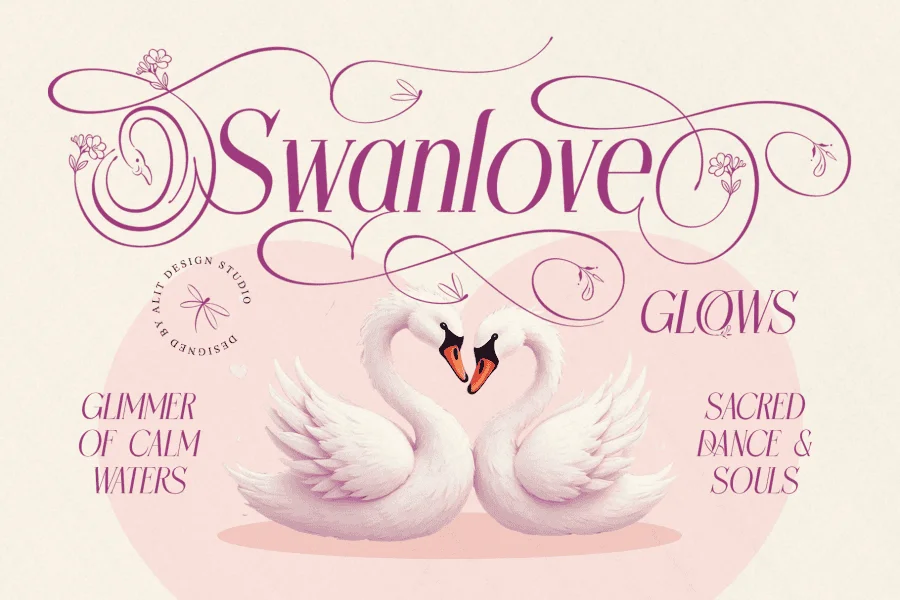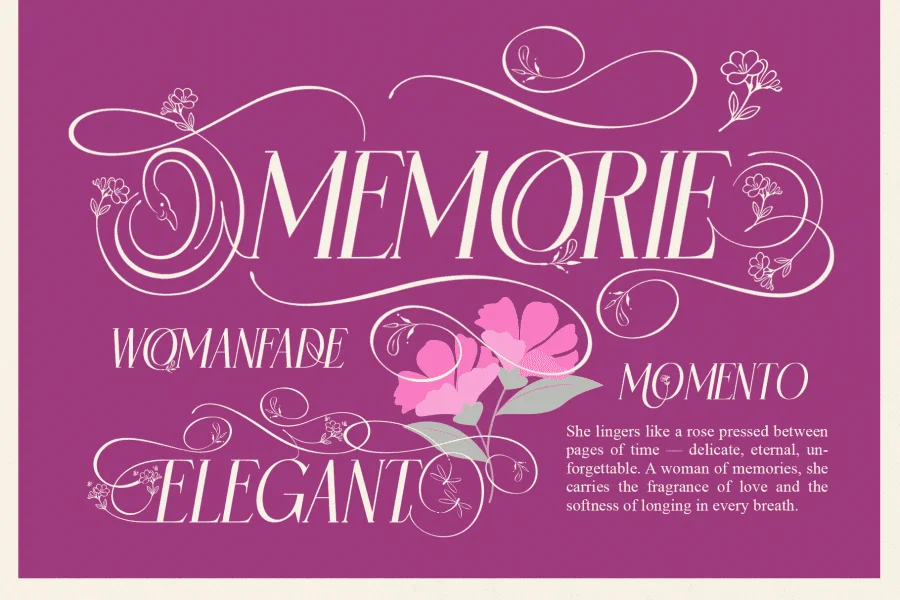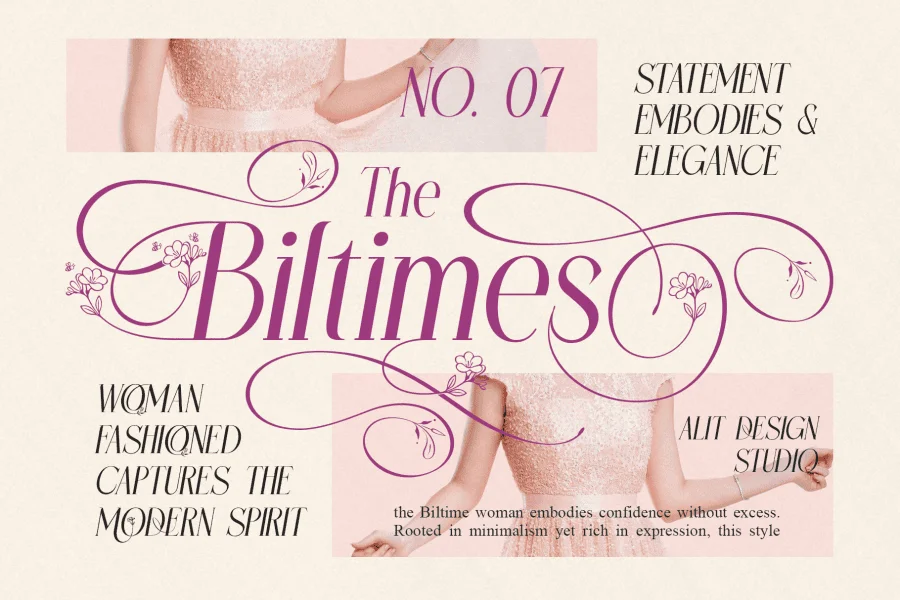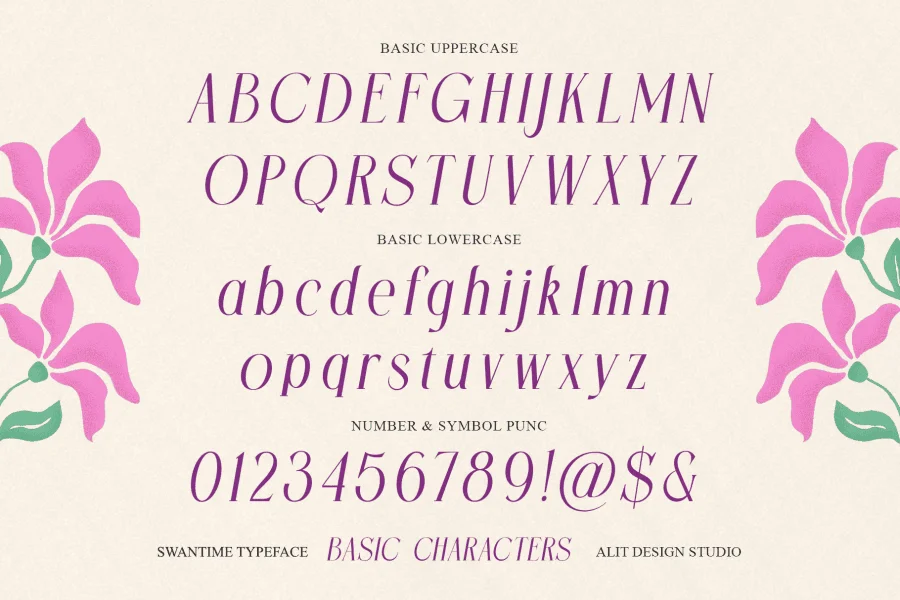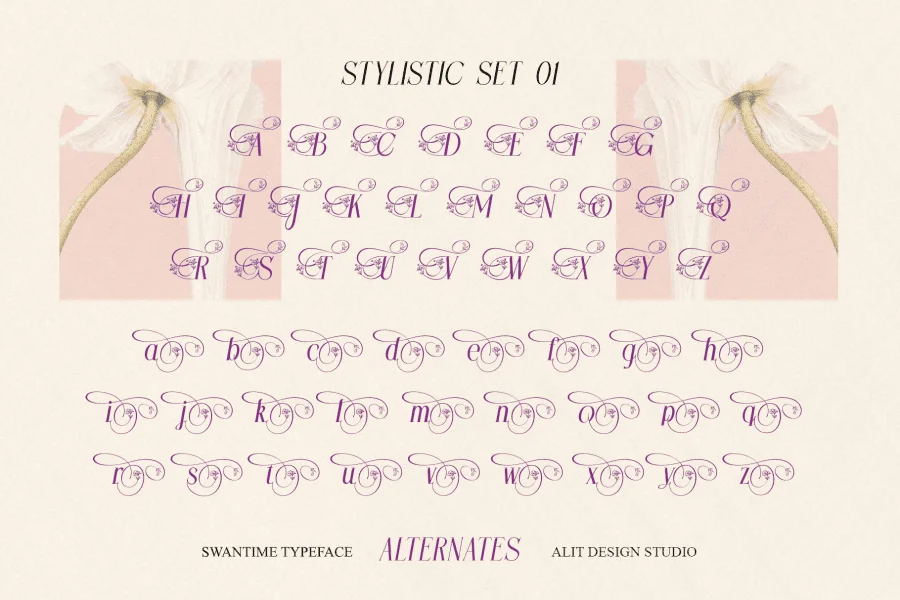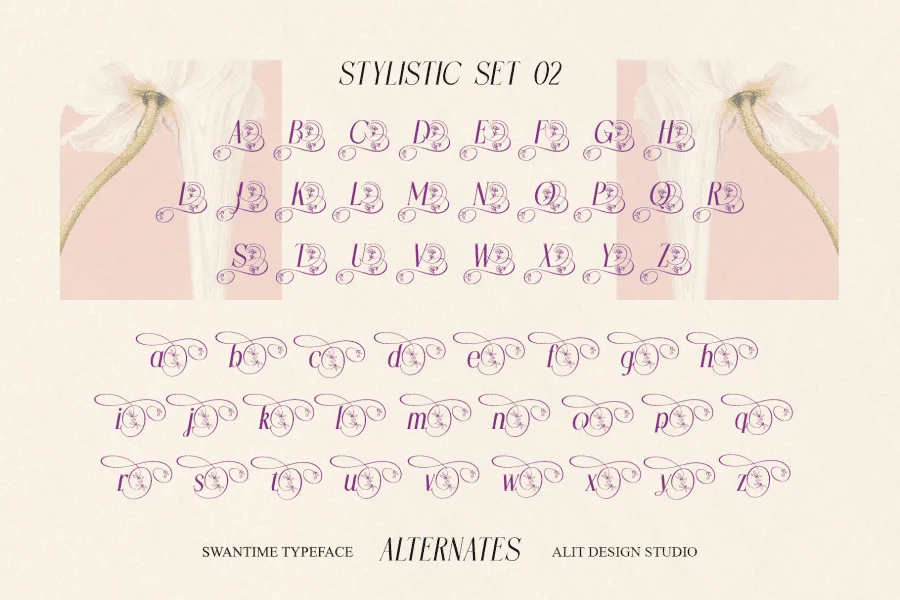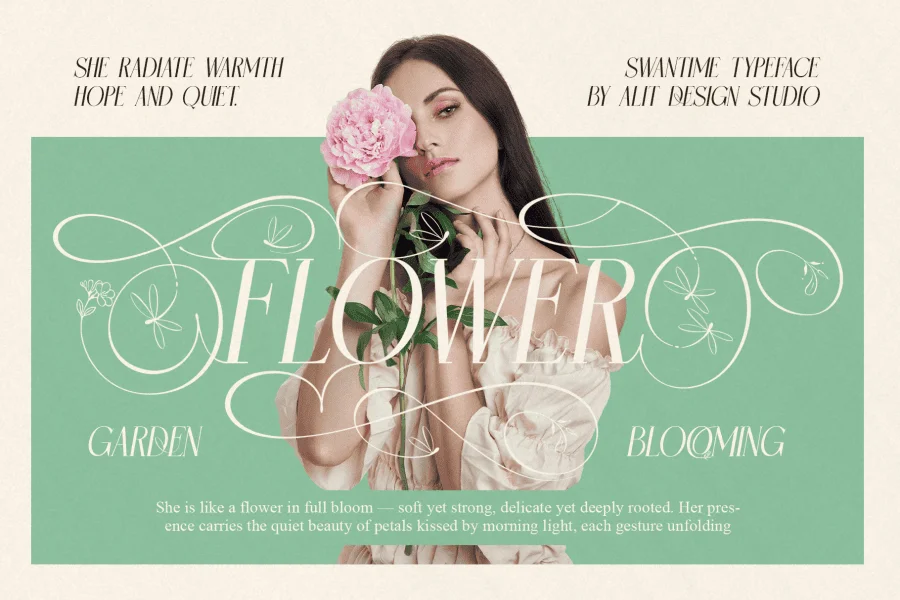
Swantime - An Elegant Nature Serif Typeface
Introducing Swantime, a stunning serif typeface where modern elegance dances with the enchanting beauty of nature. Like a graceful swan gliding across a serene lake, Swantime brings a dynamic and romantic flair to your designs. Its slanted form creates a sense of movement, while its clean lines maintain a simple, modern sophistication.